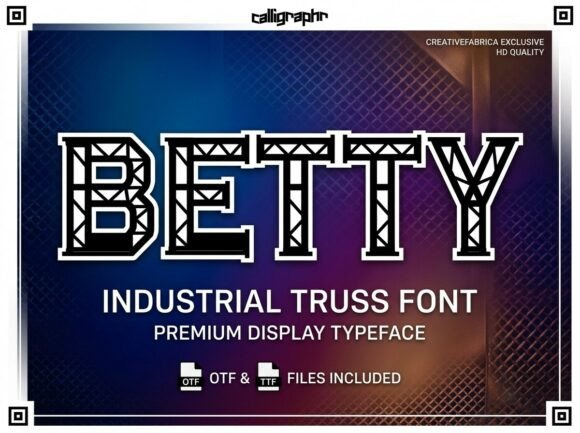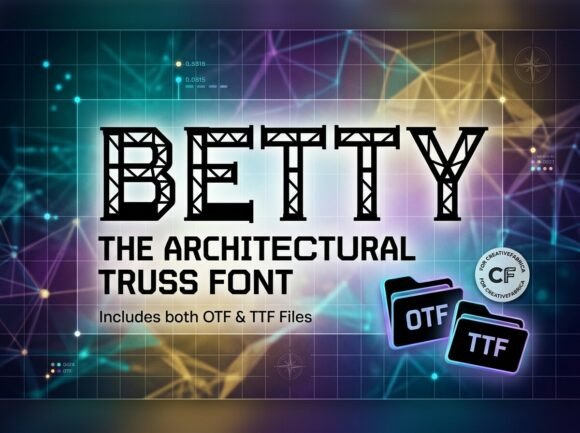
Introducing Betty Font: The Ultimate Decorative Display Font for Creators
Are you tired of using the same old fonts for your designs? Look no further than Betty Font, a stunning decorative display font that’s sure to turn heads. With its unique artistic elements and strong visual personality, this font is perfect for creators who want to break away from the ordinary and make a statement.
What Makes Betty Font So Special?
Betty Font is a versatile decorative display font that’s designed to be the center of attention. Its unique artistic elements and strong visual personality make it perfect for a variety of design projects, from bold headlines and artistic logos to creative packaging and more. Whether you’re a professional designer or a crafty DIY enthusiast, this font is sure to elevate your designs to the next level.
Key Features of Betty Font
- Unique Artistic Elements: Betty Font features unique artistic elements that set it apart from other fonts. Each letter is carefully crafted to make a statement, making it perfect for high-impact headlines, logos, and decorative initials.
- Strong Visual Personality: This font has a strong visual personality that’s sure to grab attention. Its bold and eye-catching design makes it perfect for creators who want to make a statement.
- Versatile: Betty Font is versatile enough for a variety of design projects, from bold headlines and artistic logos to creative packaging and more.
- Professional and Polished Finish: Despite its bold and artistic design, Betty Font maintains a professional and polished finish that’s perfect for high-end designs.
Why Betty Font is Perfect for Designers and Crafters
Betty Font is perfect for designers and crafters who want to add a touch of elegance and sophistication to their designs. Its unique artistic elements and strong visual personality make it perfect for a variety of design projects, from:
- Headlines and Titles: Use Betty Font to create bold and eye-catching headlines and titles that grab attention.
- Logos and Branding: Create a lasting impression with a custom logo or branding design using Betty Font.
- Packaging and Labels: Add a touch of elegance and sophistication to your packaging and labels with Betty Font.
- Art and Illustration: Use Betty Font to add a decorative touch to your art and illustration projects.
Tips for Using Betty Font
Here are some tips for using Betty Font:
- Use it sparingly: Because of its bold and eye-catching design, it’s best to use Betty Font sparingly to avoid overwhelming your design.
- Pair it with a simple font: Pair Betty Font with a simple font to create contrast and make your design stand out.
- Experiment with colors: Experiment with different colors and textures to add depth and interest to your design.
Betty Font is a stunning decorative display font that’s perfect for creators who want to make a statement. With its unique artistic elements and strong visual personality, this font is sure to elevate your designs to the next level. Whether you’re a professional designer or a crafty DIY enthusiast, Betty Font is a must-have font for any design project.